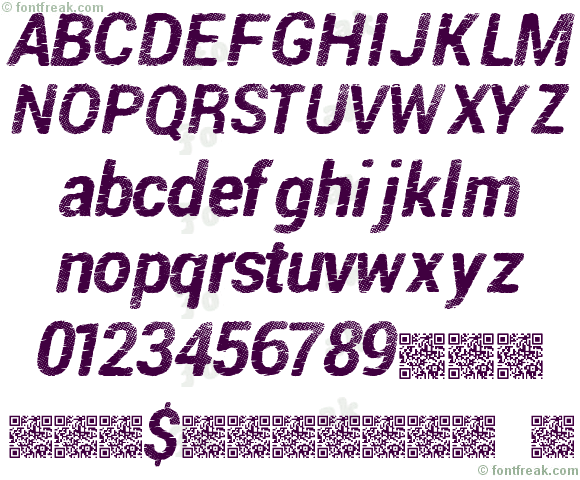
PirateDisco
PirateDisco, created by Xerographer Fonts in 2013, is a captivating display font that seamlessly blends a playful spirit with a bold visual impact. This typeface is characterized by its unique, textured strokes that evoke a sense of adventure and whimsy. The font features a medium stroke weight with a slight contrast that adds depth while maintaining readability. The irregularities in its letterforms contribute to its hand-crafted feel, making it ideal for projects that seek to convey a lively and engaging atmosphere.
PirateDisco is particularly well-suited for use in vibrant and dynamic contexts. It shines in applications such as movie posters, where its distinctive style can capture attention and convey the theme or genre of the film. Additionally, it can enhance the design of music event flyers, where a sense of fun and excitement is essential. This font is also a great choice for themed restaurant menus, especially those with a casual or eclectic vibe, allowing for a memorable dining experience. Graphic designers and content creators will find it an excellent tool for branding projects that aim to stand out and resonate with a youthful audience.